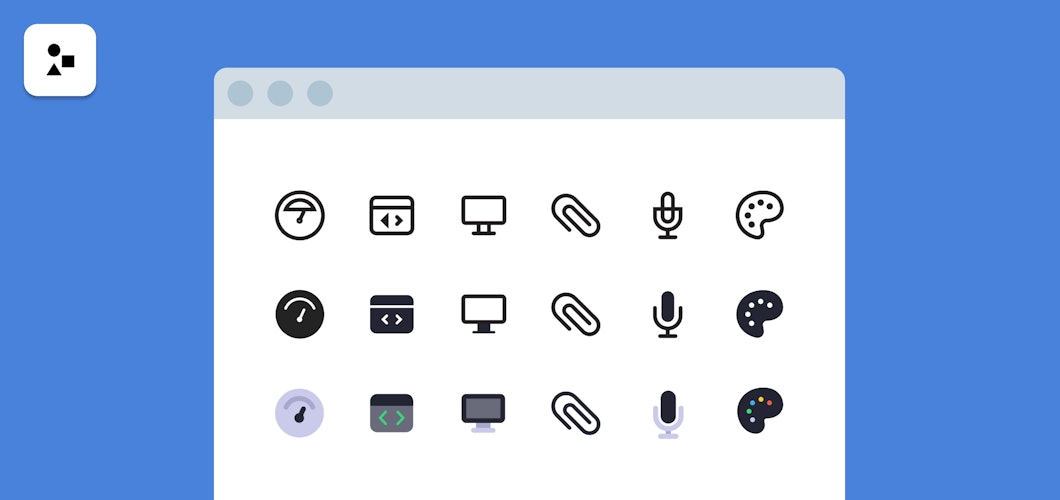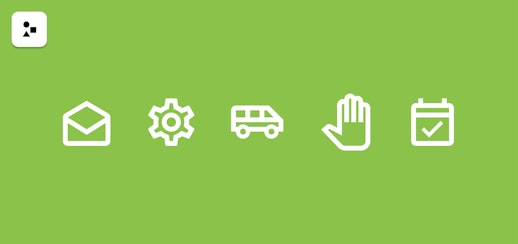
Figma community plugin this is the unofficial plugin for the font awesome icon collection.
Font awesome duotone figma. 1264 free and premium vector icons ready to use for your next ux design project. Ios 13 figma ui kit premium. Font awesome 5 free figma icon set today we are featuring a great freebie created by jonatas amaral. The use of these trademarks does not indicate endorsement of the trademark holder by font awesome nor vice versa.
Plugin allows you to filter the list of icons by name. By default the secondary layer is given an opacity of 40 so that it appears as a lighter shade of the icons inherited or directly set color. By default figma supports font awesome a popular set of icons in an easy to use font. Font awesome is free to use or you can purchase an extended range of icons.
A full set of amazing font awesome icons all put together in one convenient figma file. The plugin provides access to the entire free icon collection. Up to date with the font awesome 510 release. All icons are in vector format.
View and copy icons from the font awesome cheatsheet. Font awesome 5 icon component library for figma. Includes 372 brand and social media icons. Download the figma desktop app for macos or windows as well as the font installer and device preview apps.
You may also like. Like all other font awesome icons duotone icons automatically inherit css size and color. A duotone icon consists of a primary and secondary layer. In this video i am tackling the topic of how to use font awesome in figma while building a design system.
Figma community file free version of font awesome icons solid regular brand. Font awesome has both regular or solid versions of an icon.